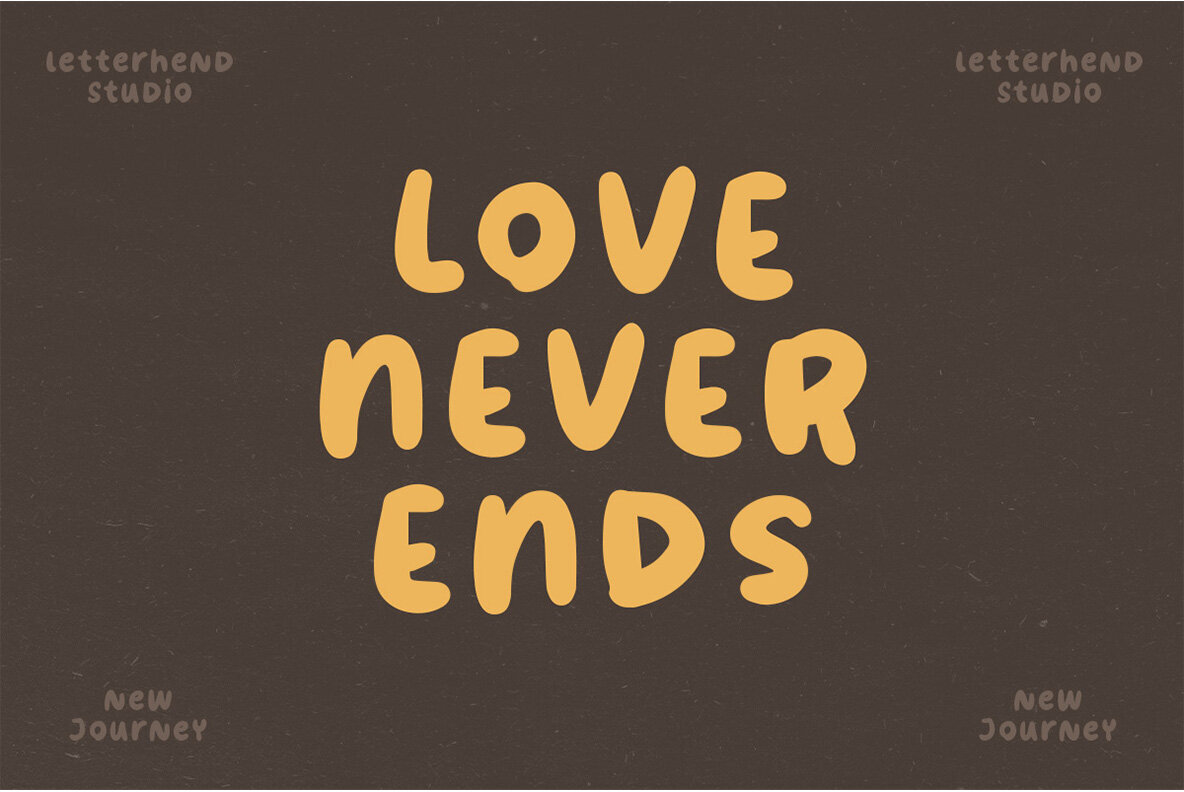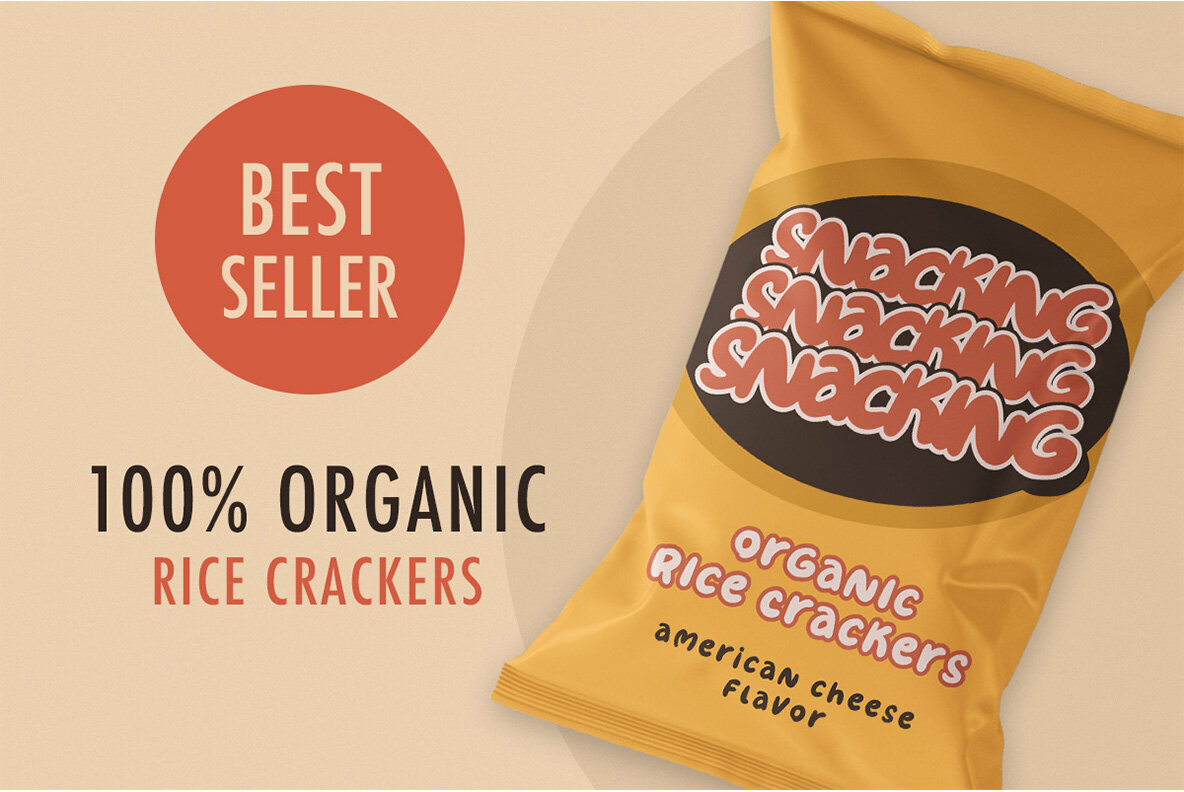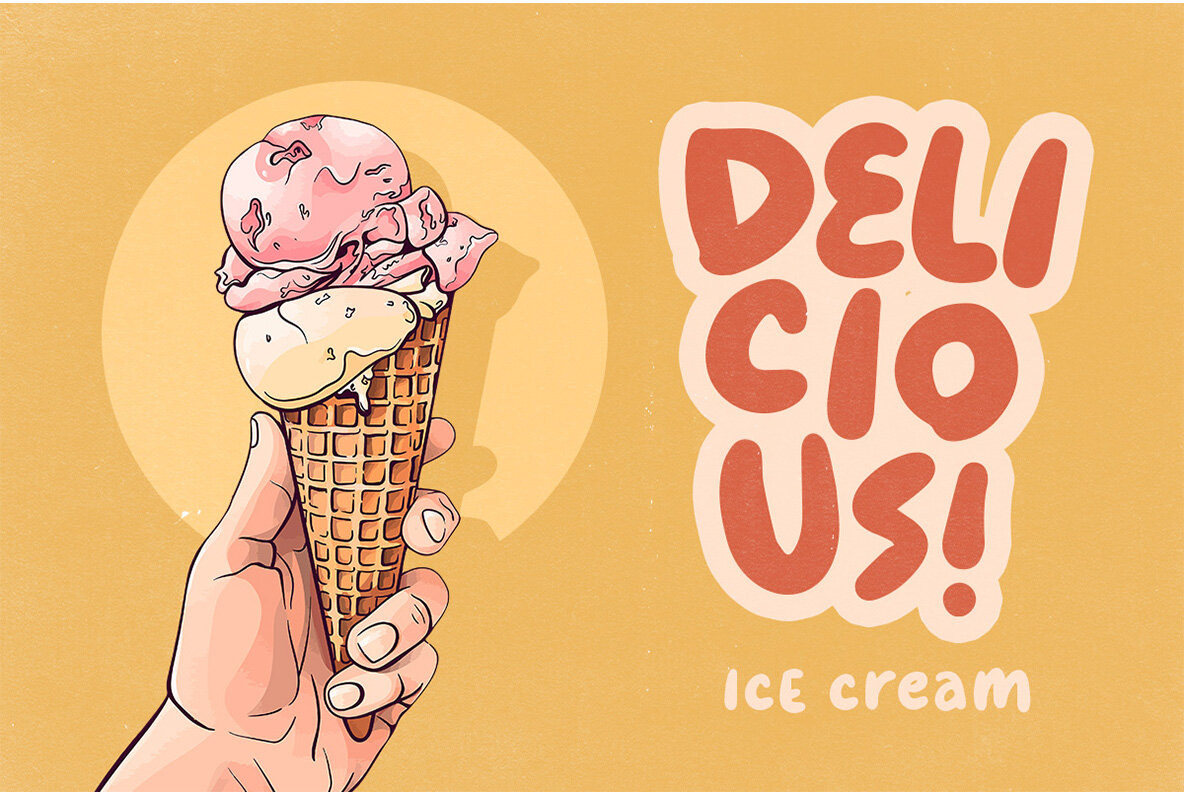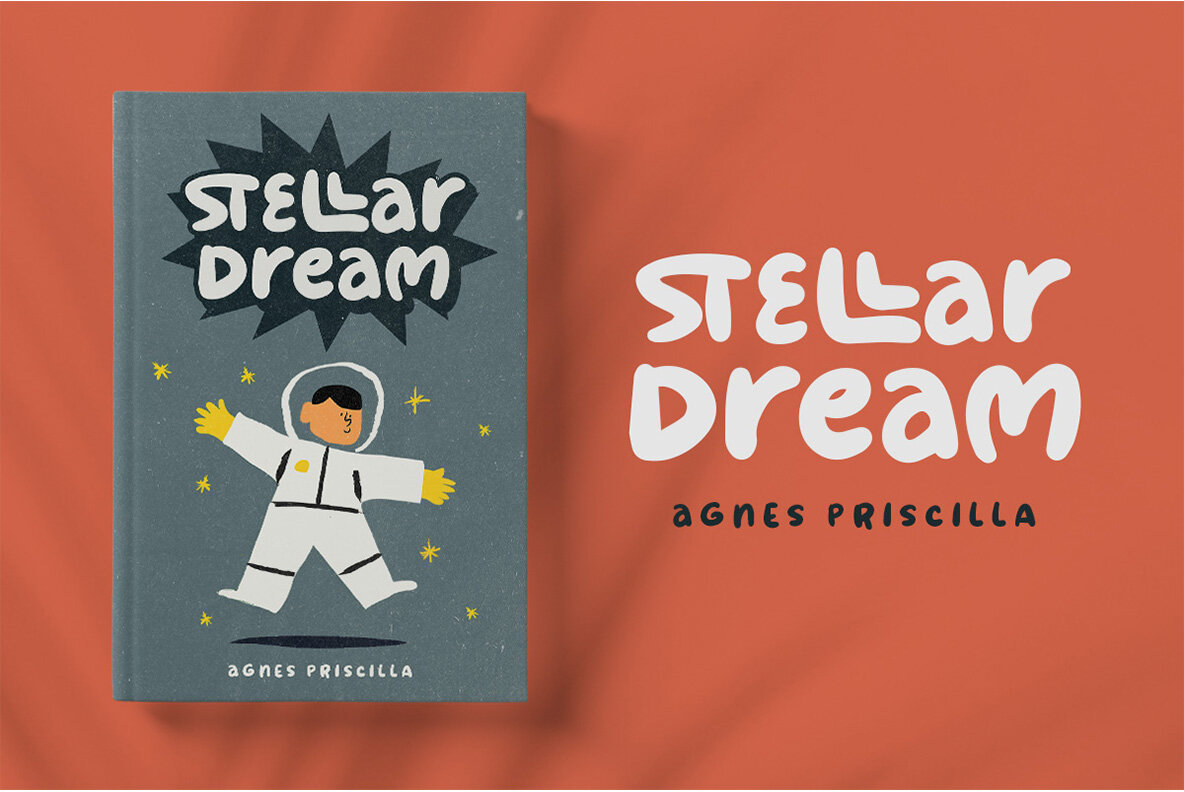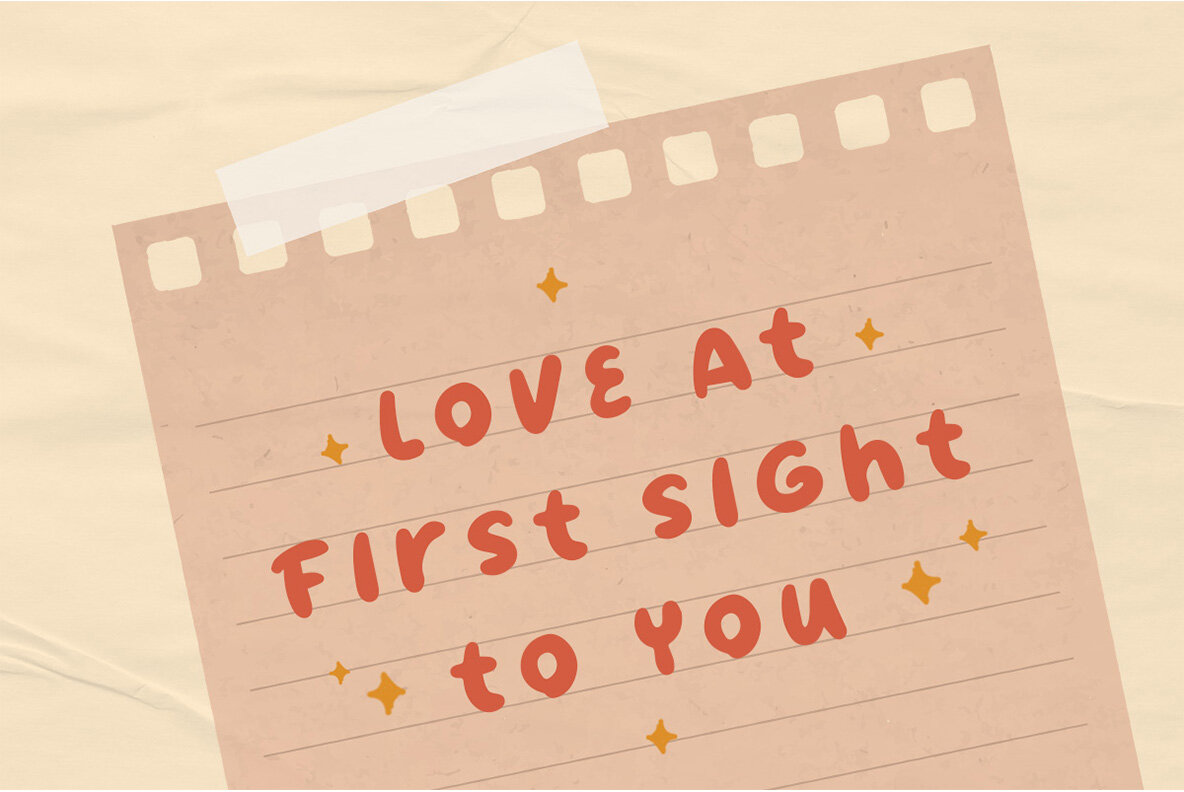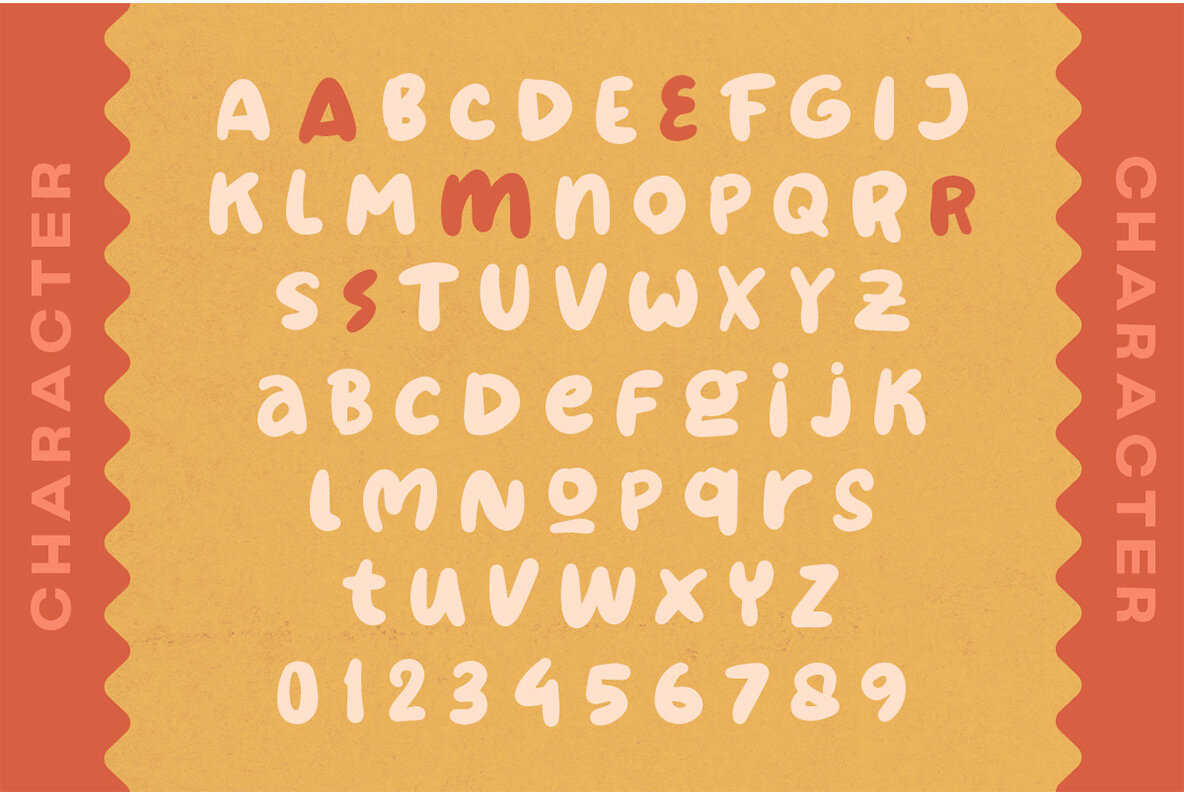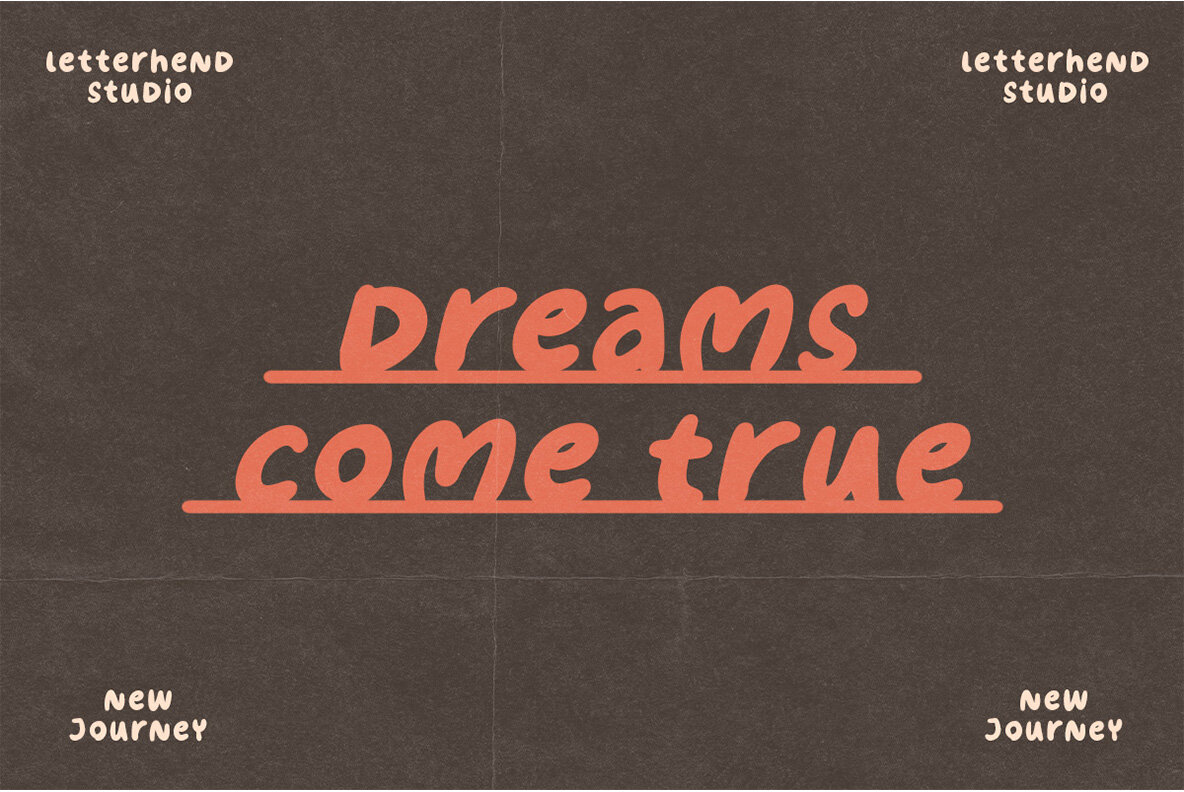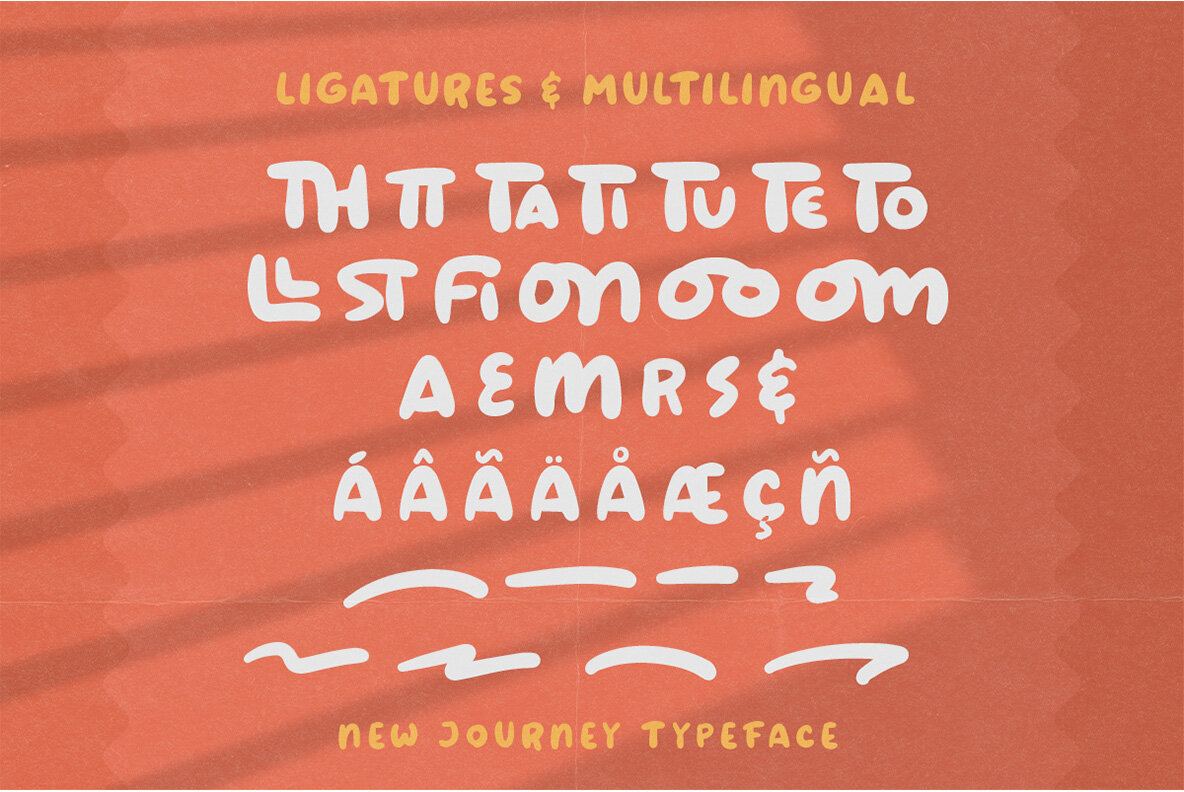
New Journey Font
New Journey Regular
New Journey is a delightful display font designed to bring a sense of whimsy and charm to your design projects. Its lively character makes it a perfect choice for children's storybooks or any child-themed projects where a bold, standout font is desired. Along with its youthful appeal, New Journey transitions seamlessly into more formal contexts such as invitations, logos, magazine layouts, and wedding cards. This versatile typeface is equally at home in fashion and makeup branding, packaging designs, and advertising campaigns. For optimal use of the font's features, we recommend software that supports OpenType capabilities such as Adobe applications or Corel Draw. These programs allow easy access to all Glyph variations, enhancing your design possibilities.New Journey: Playful Display Font